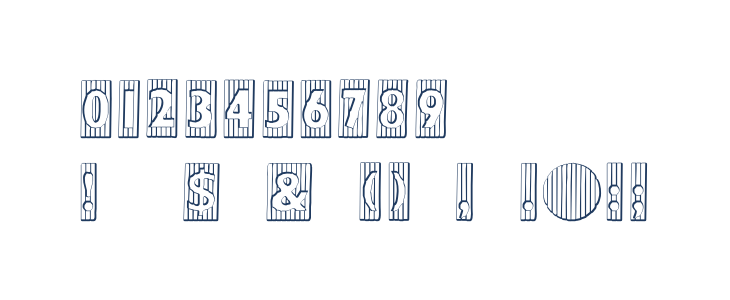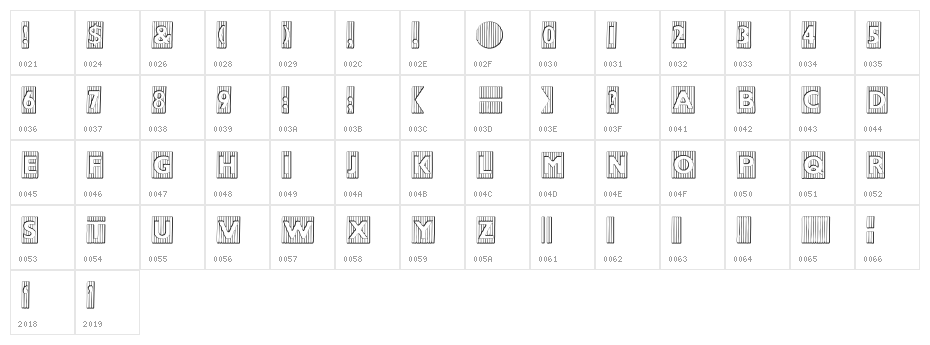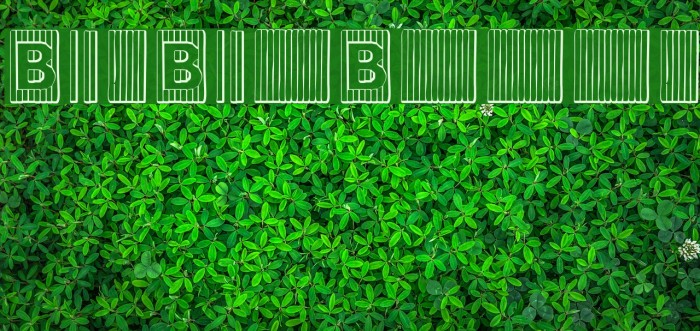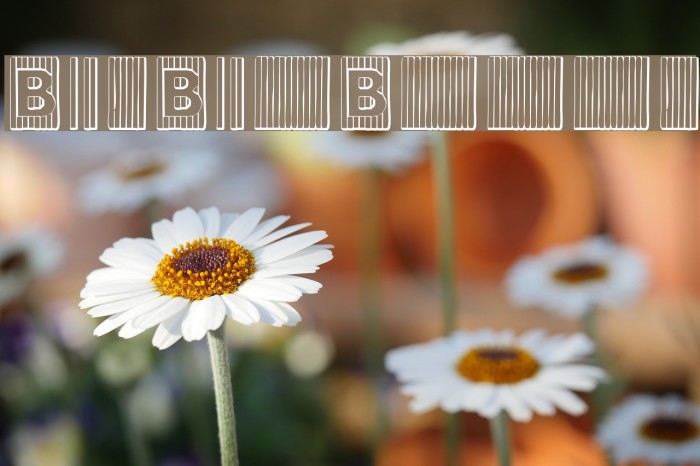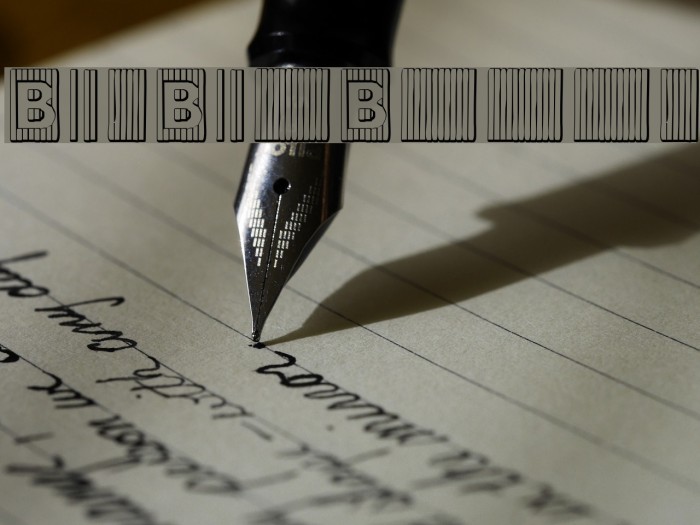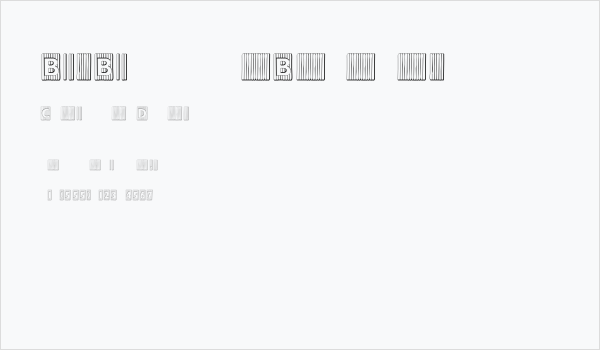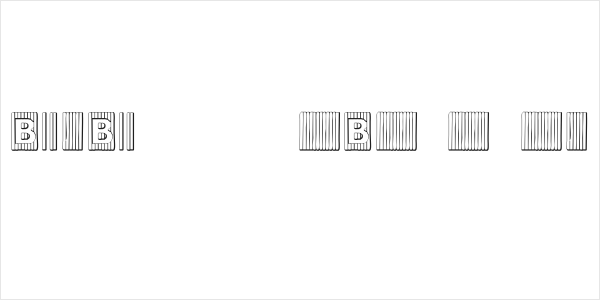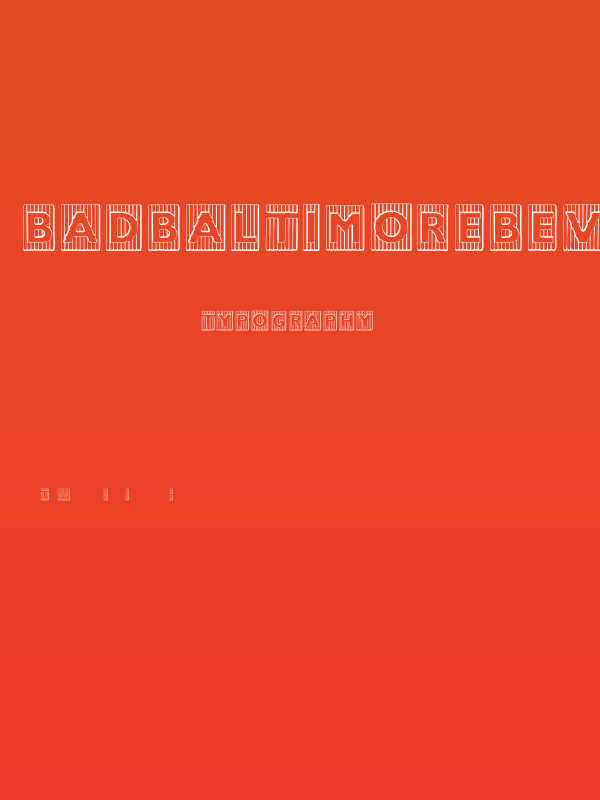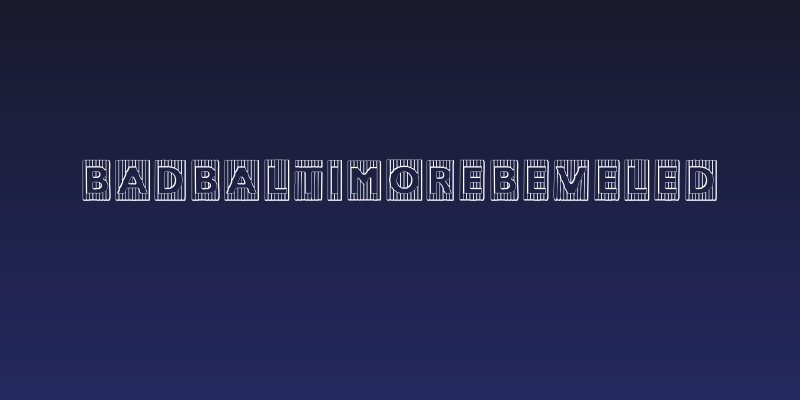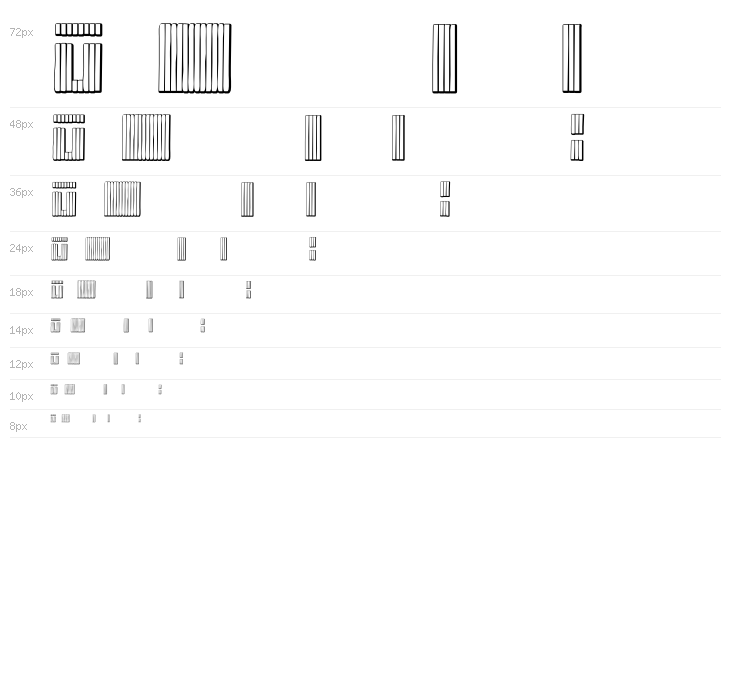
BadBaltimoreBeveled Font
BadBaltimoreBeveled Description
This font features a bold, decorative style with a unique beveled effect. Each character is enclosed within a rectangular outline, giving it a structured and geometric appearance. The letters are uppercase with a consistent height, and the design includes vertical lines within each character, adding texture and depth. The numbers and special characters follow the same design principles, maintaining uniformity across the set. The font's distinct style makes it stand out, suitable for eye-catching designs.
| Proposed Projects | Ideal for posters, logos, and branding projects that require a bold and distinctive look. |